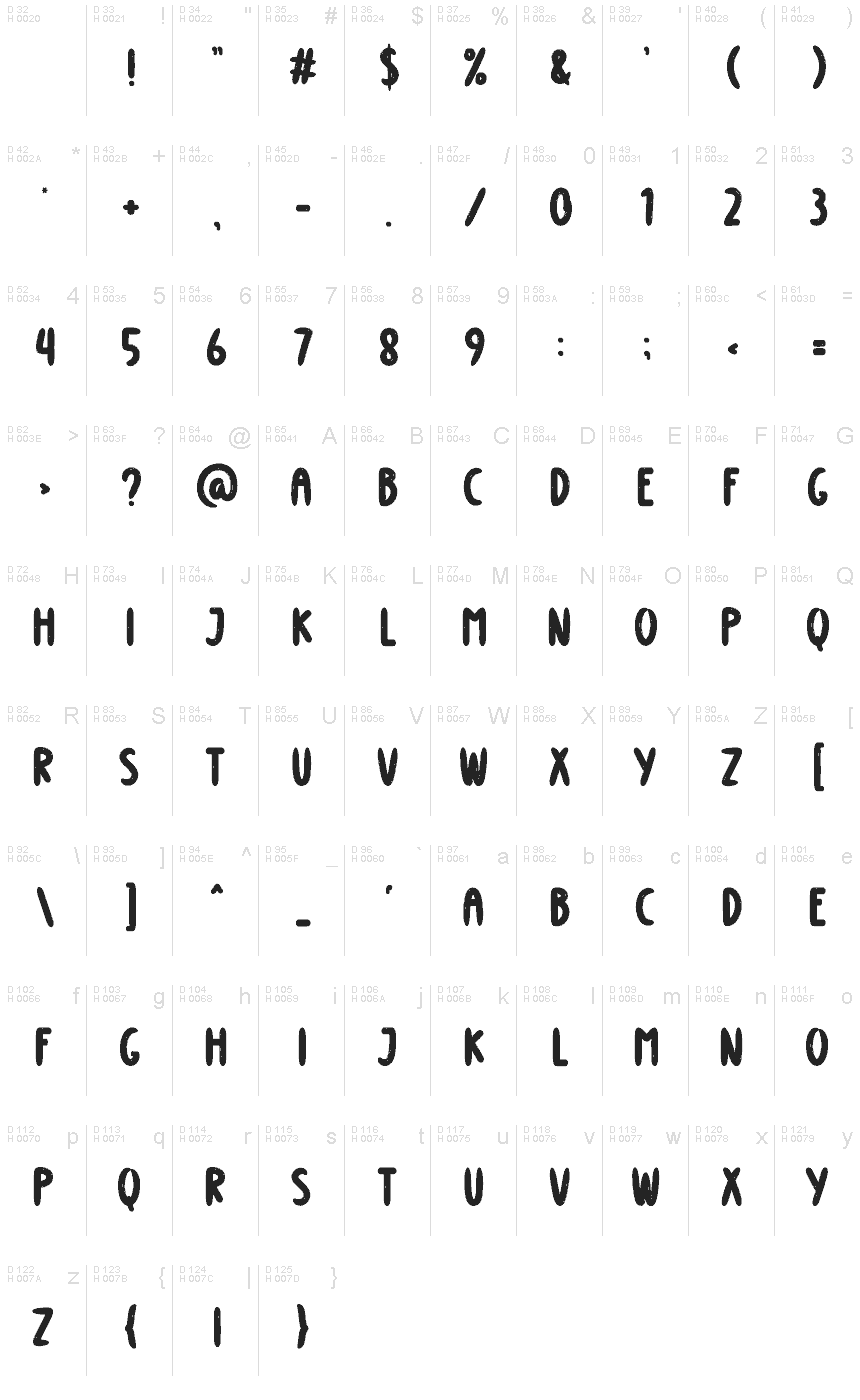
Star Brush
Star Brush font designed by Scratchones is a condensed brush typeface with an organic texture that adds a casual atmosphere to designs. Its irregular lines and hand-drawn appearance contribute to its unique artistic vibe, making it a memorable selection for personal and professional projects.